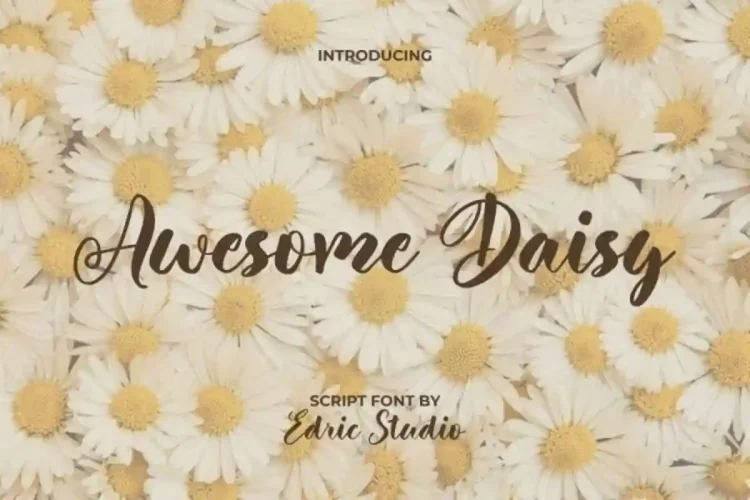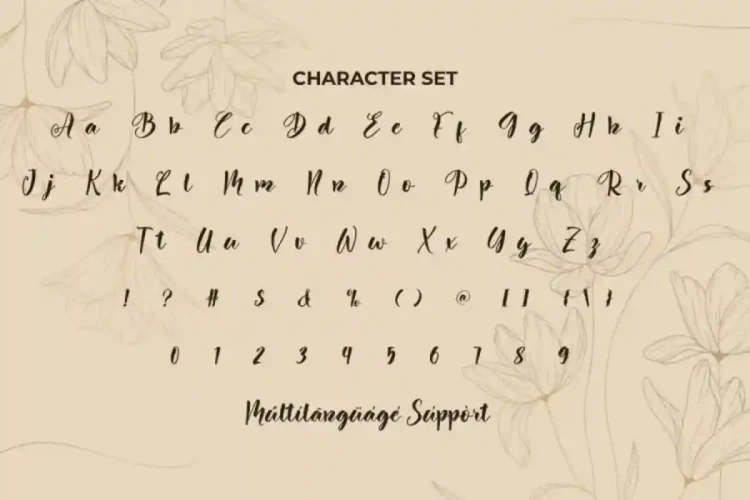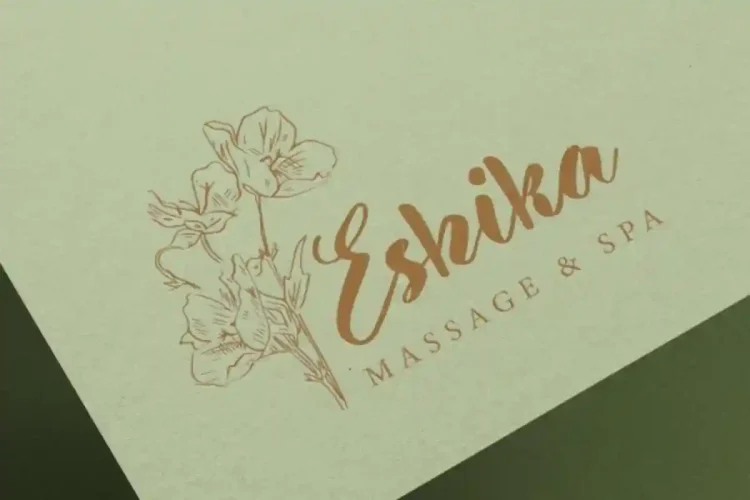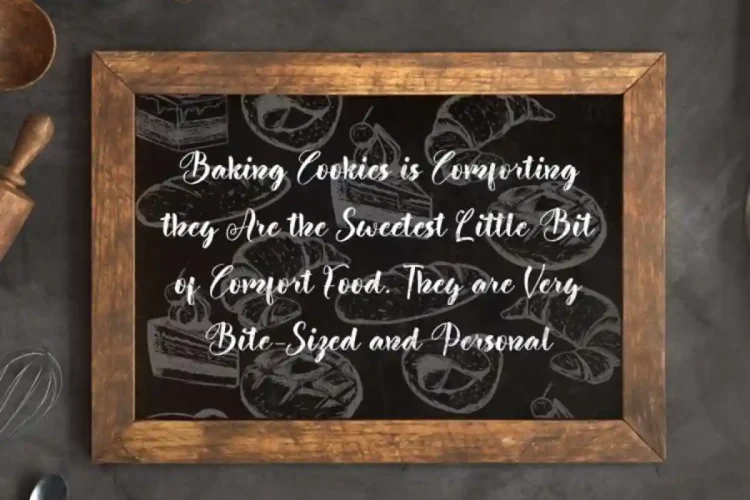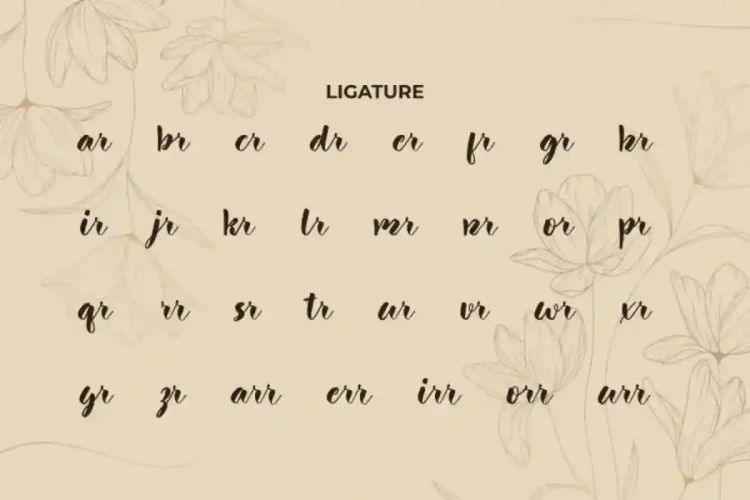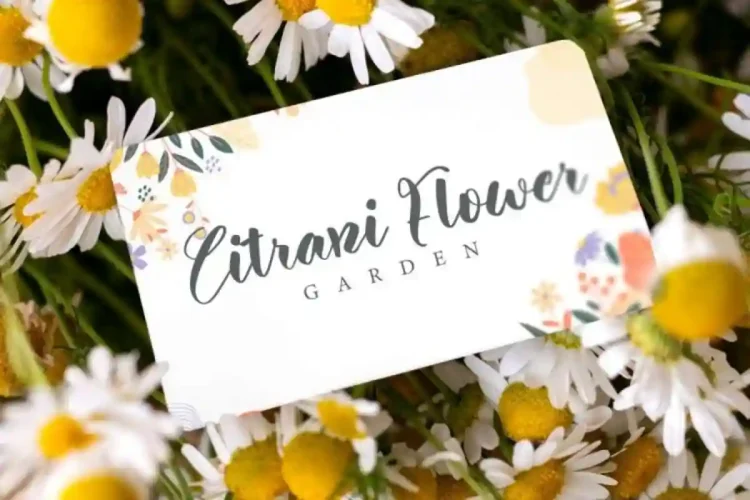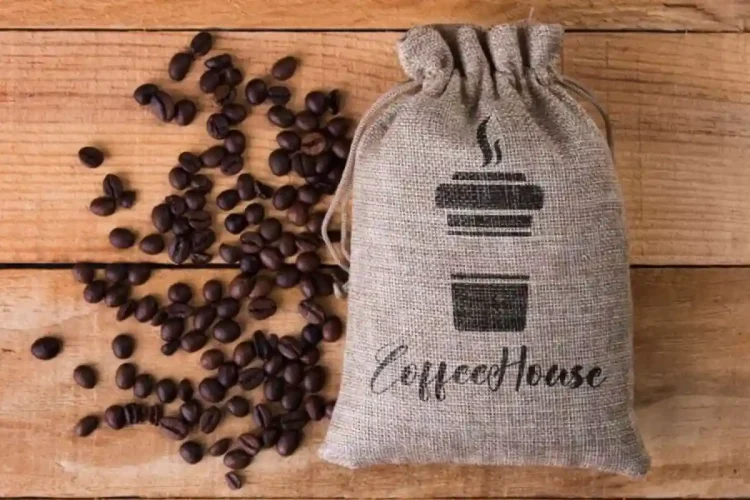
Awesome Daisy Script Font a beautiful script typeface crafted by EdricStudio. Inspired by the purity of the daisy flower, this font represents grace, charm, and timeless beauty, making it a versatile choice for personal and professional projects.
Awesome Daisy Script Font comes with a full set of Uppercase and Lowercase Basic Characters, Number, a large range of Punctuation and Symbol. It has a stunning characters set, perfectly managed with well spaced and kerning.
Awesome Daisy Script Font is a playful typeface with unique decoration in each character. Ready to use both on Windows machine or Mac with simple installations with multilingual characters supported. It’s tested to work well in the Adobe Apps (Illustrator, Adobe InDesign, Adobe Photoshop) even work on Microsoft Word. PUA Encode Characters means you can access all characters easily – Fully accessible without additional design software.